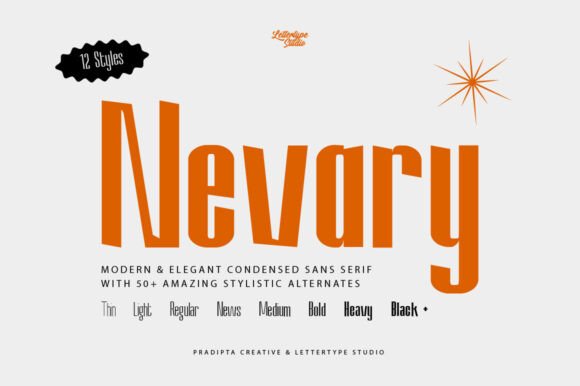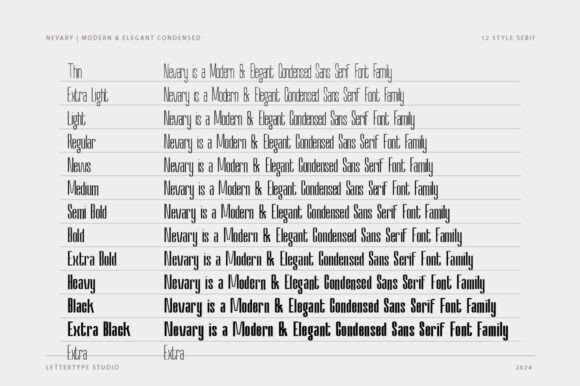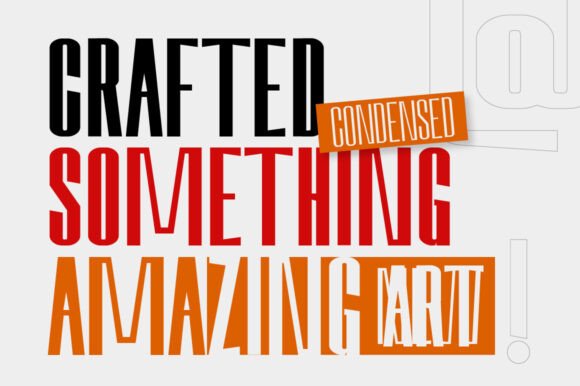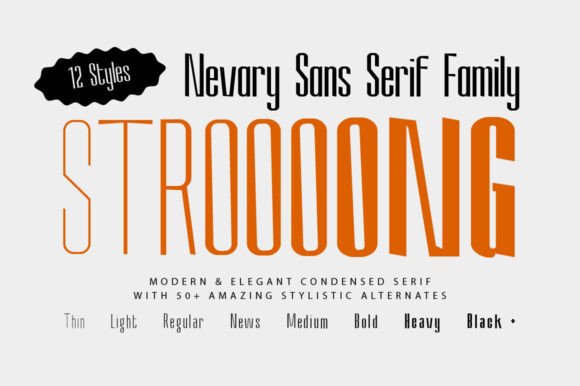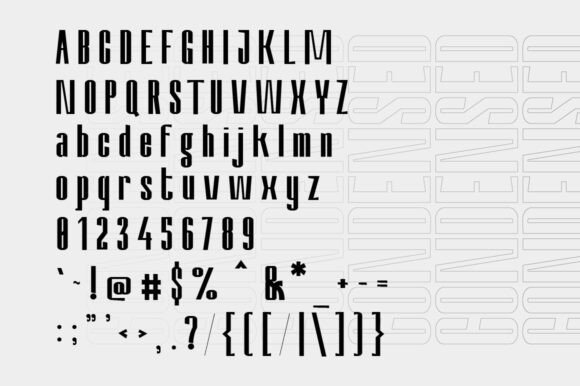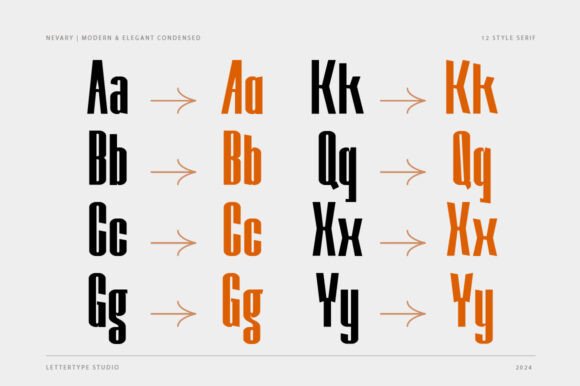
Introduction to Nevary Font
As a designer, there’s nothing quite like the thrill of staring at a blank canvas, envisioning the perfect font to bring your creative project to life. The right font can elevate your design, convey your message, and leave a lasting impression on your audience. For those seeking a modern, elegant, and professional look, the Nevary Font is an excellent choice.
With its unique blend of clean lines and condensed proportions, the Nevary Font is perfect for headlines and titles. Its versatility and high quality make it an invaluable design resource, suitable for both digital and print creations. Whether you’re working on a marketing campaign, a branding project, or simply a creative endeavor, the Nevary Font is sure to add a touch of sophistication and style.
One of the standout features of the Nevary Font is its ability to be customized with a transparent background, allowing you to seamlessly integrate it into your design. Plus, with multilingual support and multiple styles to choose from, you’ll have endless possibilities to experiment and find the perfect fit for your project.
Key Features of Nevary Font
- High-quality, free font designed for creative projects, perfect for designers and artists.
- Features a transparent background, allowing for easy layering and manipulation in design applications.
- Designed to be highly customizable, with a range of styles and sizes available for download.
Honest Review: Nevary Font
I recently stumbled upon the Nevary Font, a free download that has been making waves in the design community. As a designer, I was excited to put it to the test and see if it lives up to the hype.
- High Quality – The Nevary Font is crisp and clear, making it perfect for a variety of creative projects.
- Flexible – The font is available in a range of styles, from bold to light, making it easy to use in different contexts.
- Transparent Background – The Nevary Font is compatible with transparent backgrounds, giving designers the freedom to get creative with their designs.
- Limited Customization – While the font is versatile, it doesn’t offer a wide range of customization options.
- Not Ideal for Long Text – The font may not be the best choice for long blocks of text due to its decorative nature.
Overall, I’m impressed with the Nevary Font’s potential as a design resource. It’s a great choice for designers looking to add some flair to their creative projects. With a little creativity, the limitations of the font can be easily worked around.
Some common use cases for Nevary Font include creating social media graphics, designing marketing materials, and developing branding elements. Tips for getting the most out of Nevary Font include experimenting with different font sizes and colors, using Nevary Font’s transparent background feature to create visually appealing graphics, and combining Nevary Font with other design elements to create unique and creative designs.